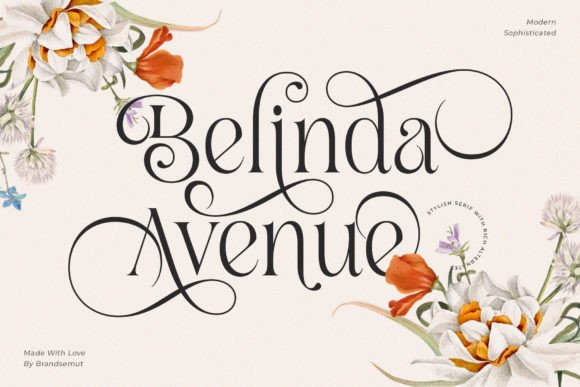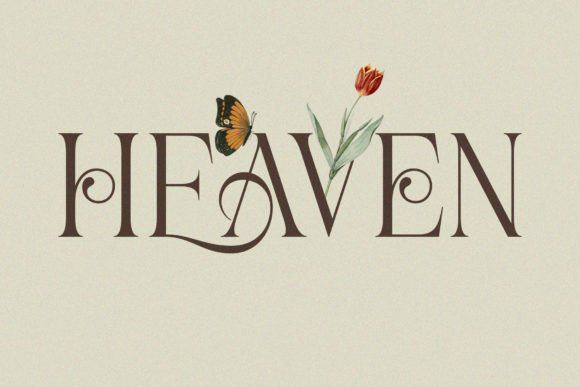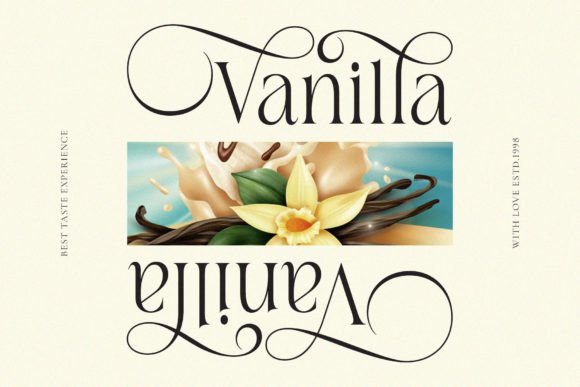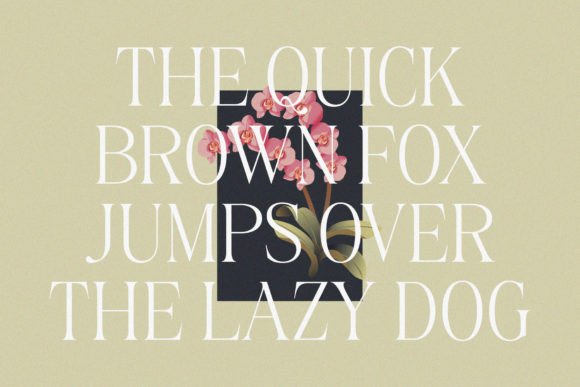
Belinda Avenue Font
Belinda Avenue is a sleek and stylish serif font that combines classic sophistication with a modern flair. Its slim letterforms and high contrast create a sense of refined luxury, while its contemporary styling adds a touch of chic. Perfect for fashion, beauty, and lifestyle branding, as well as editorial design and social media graphics.